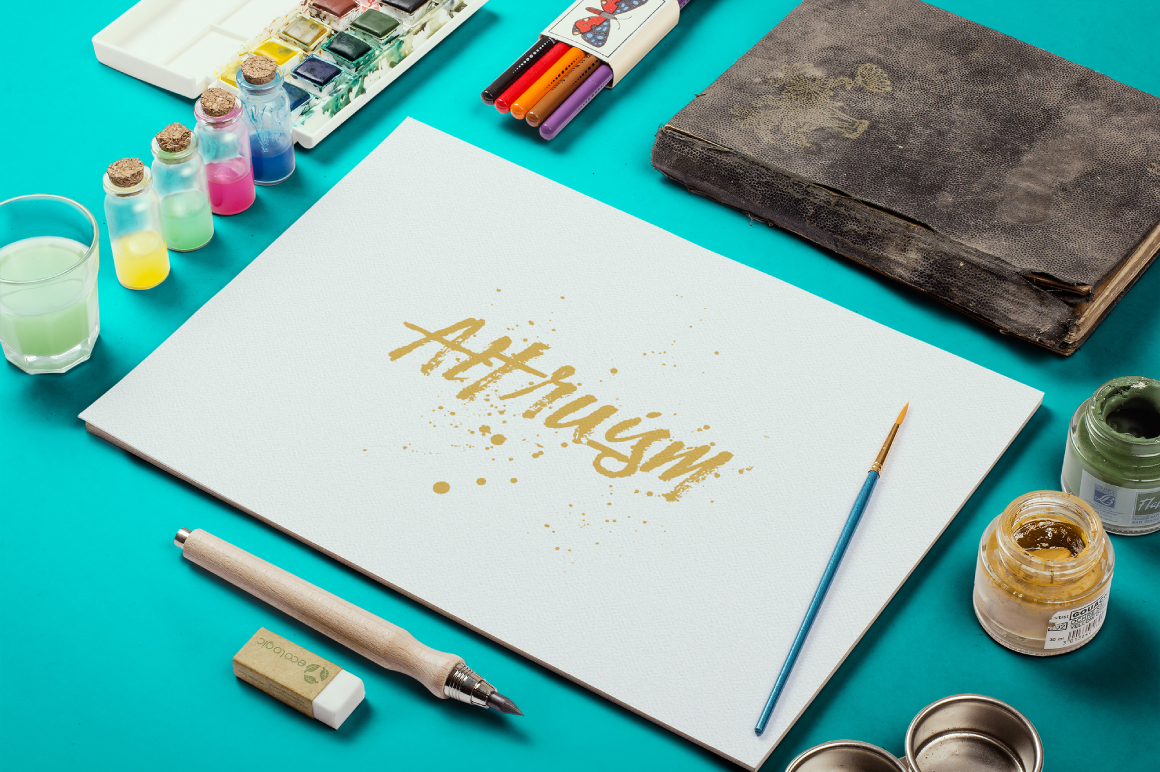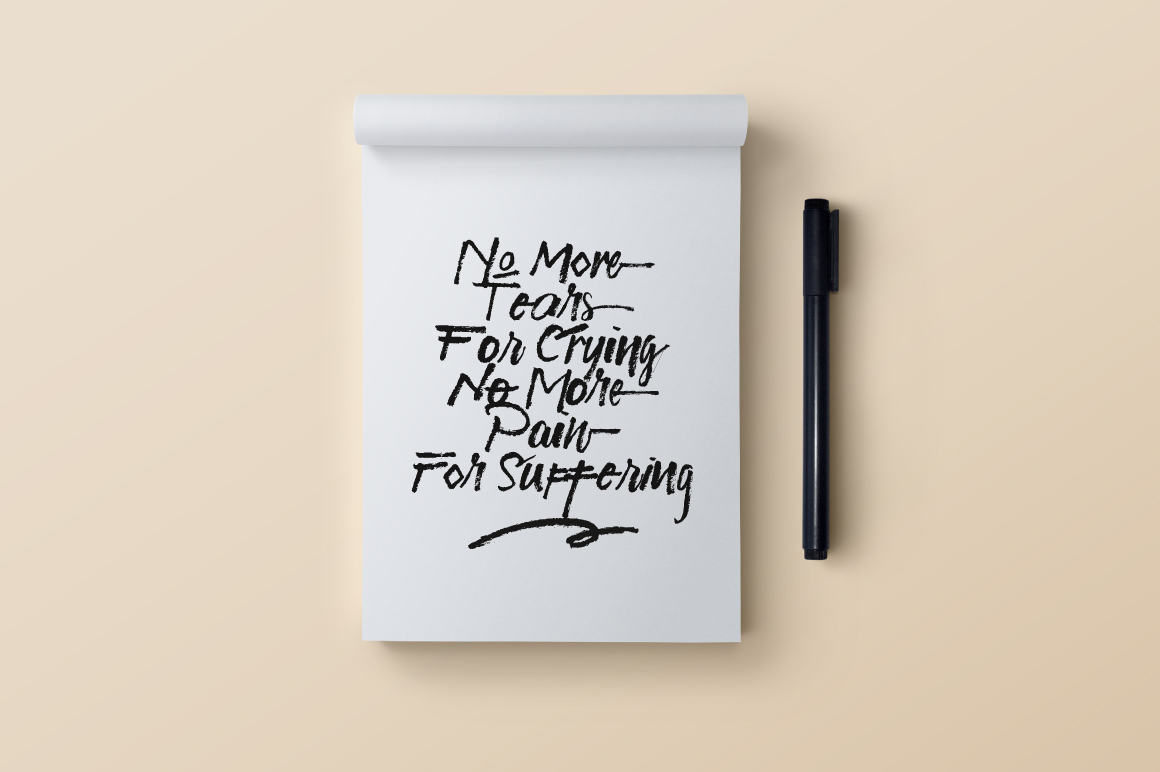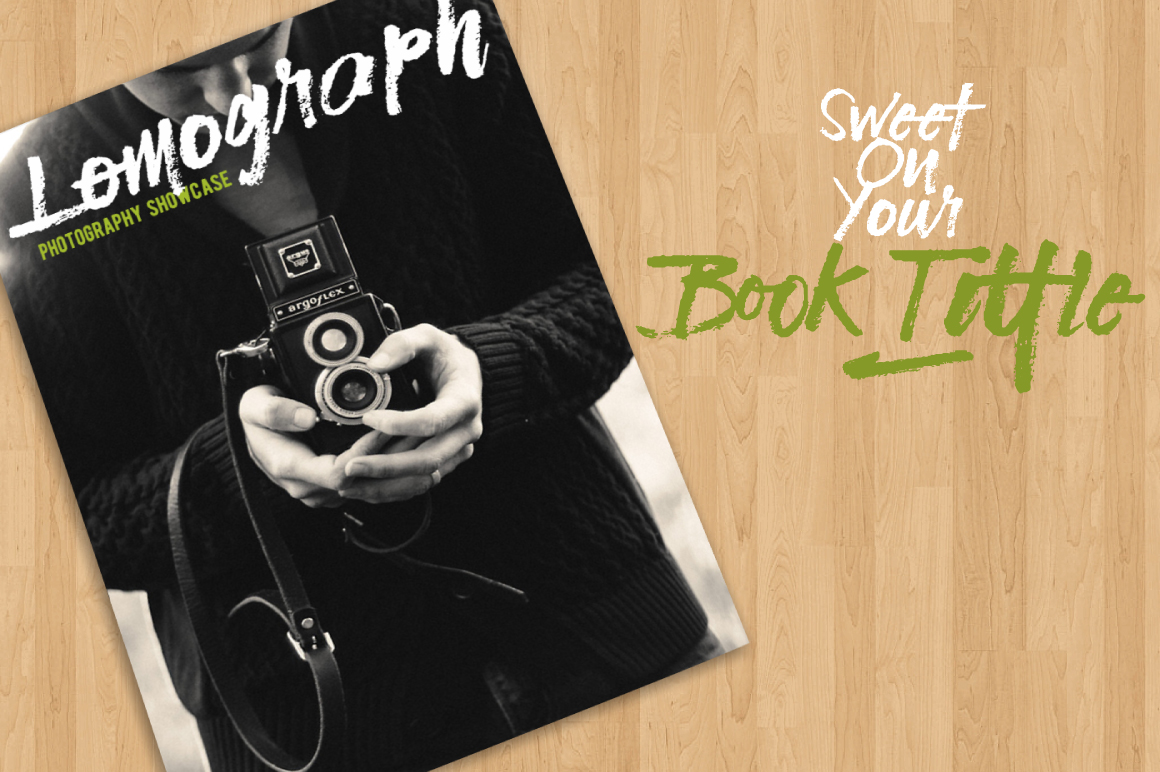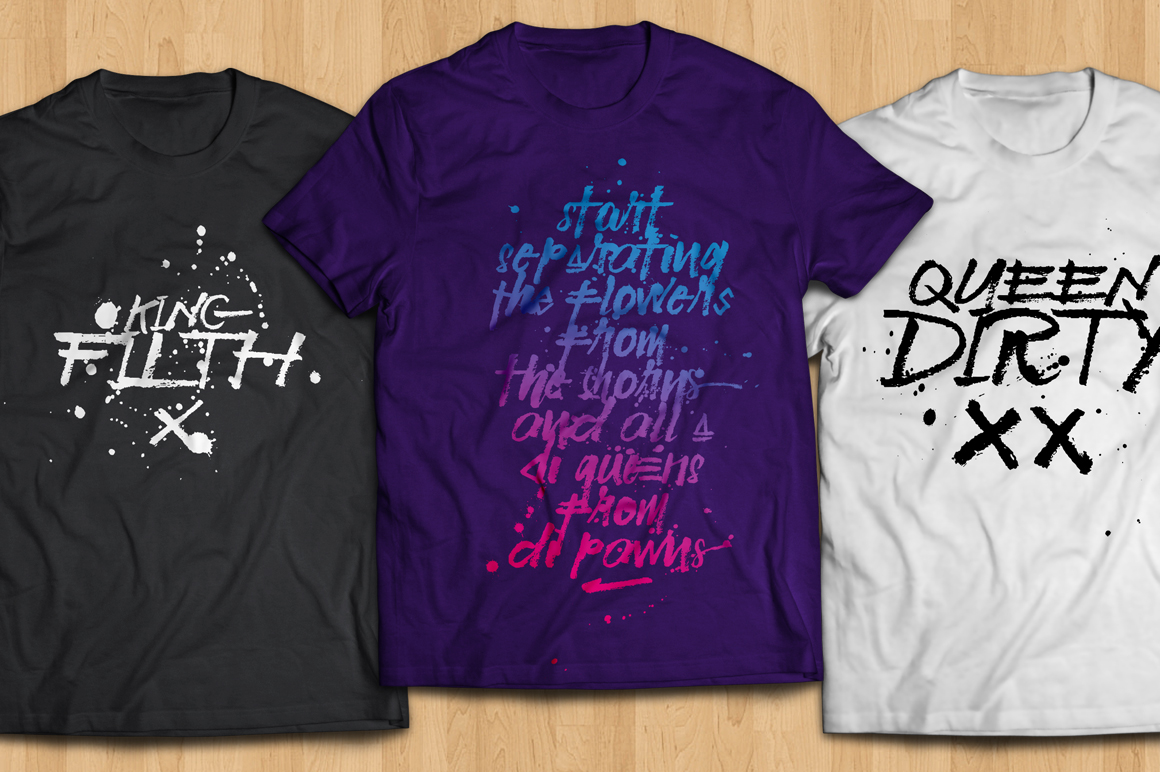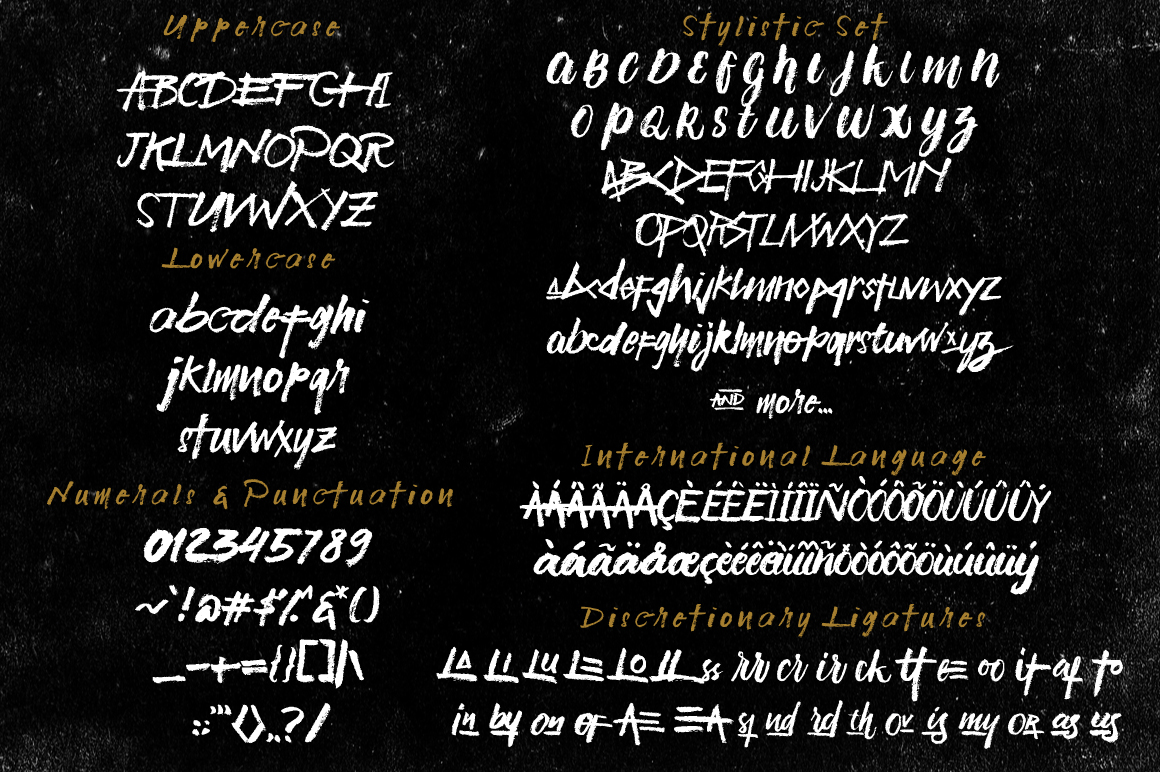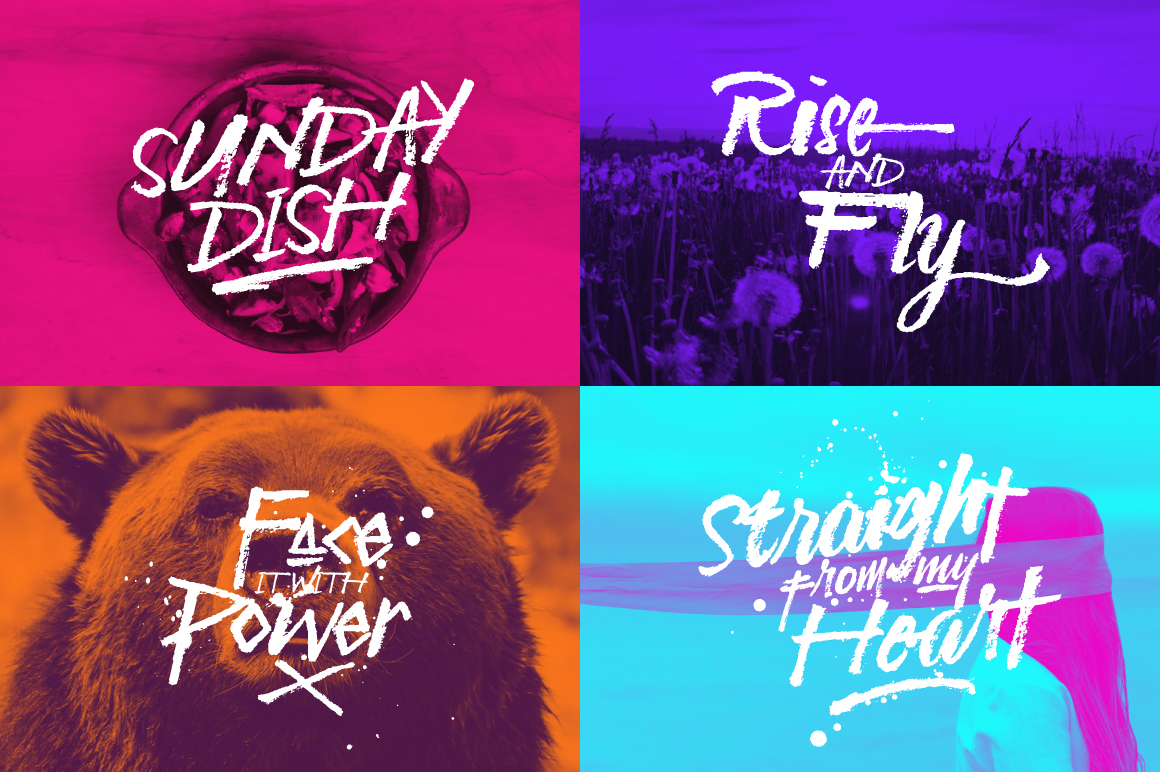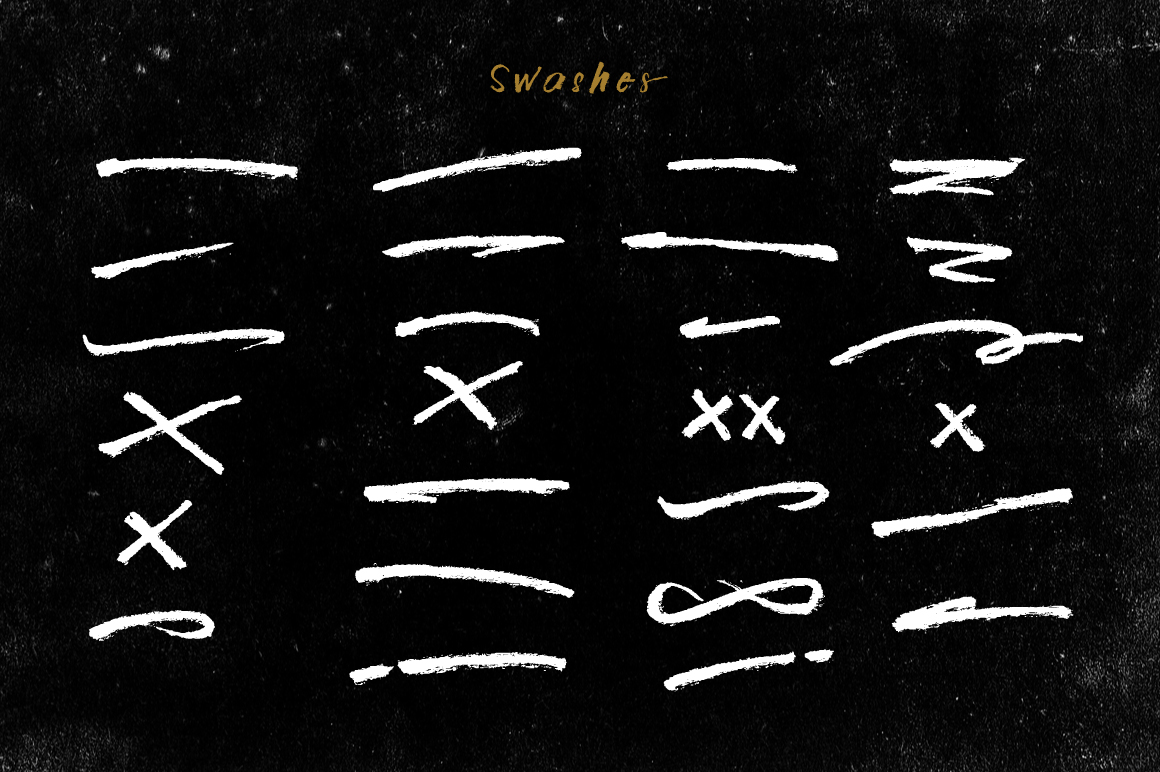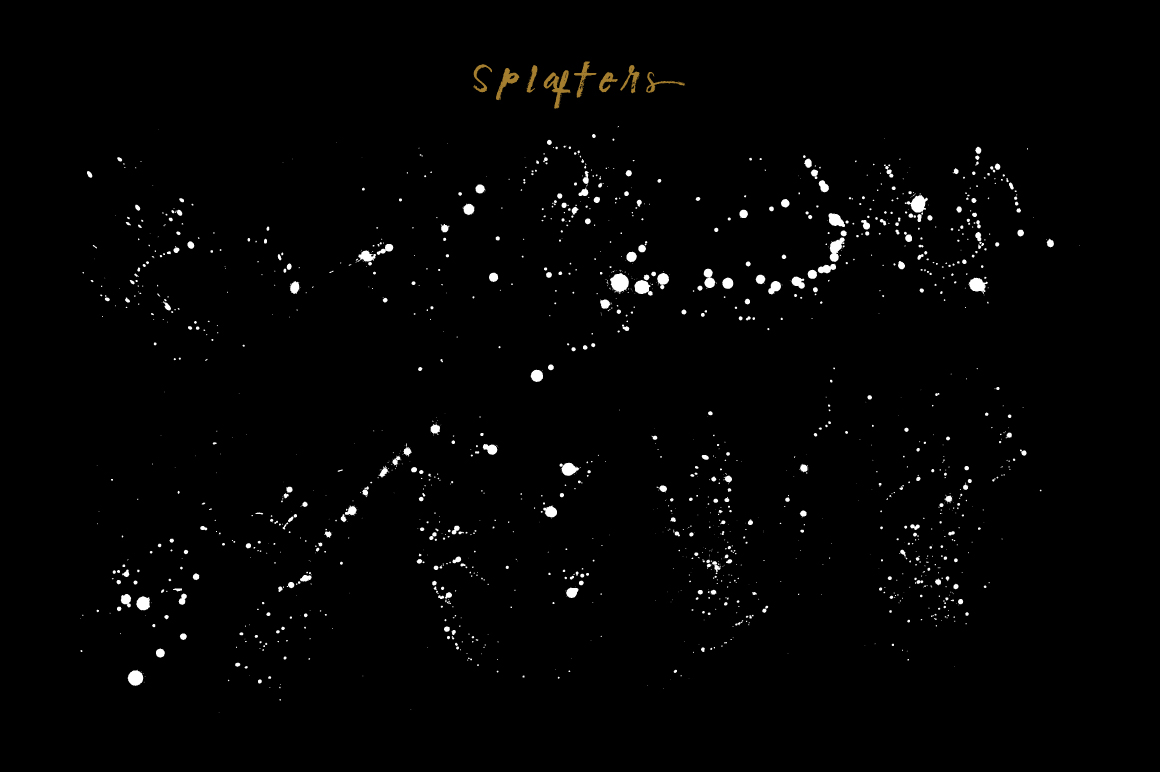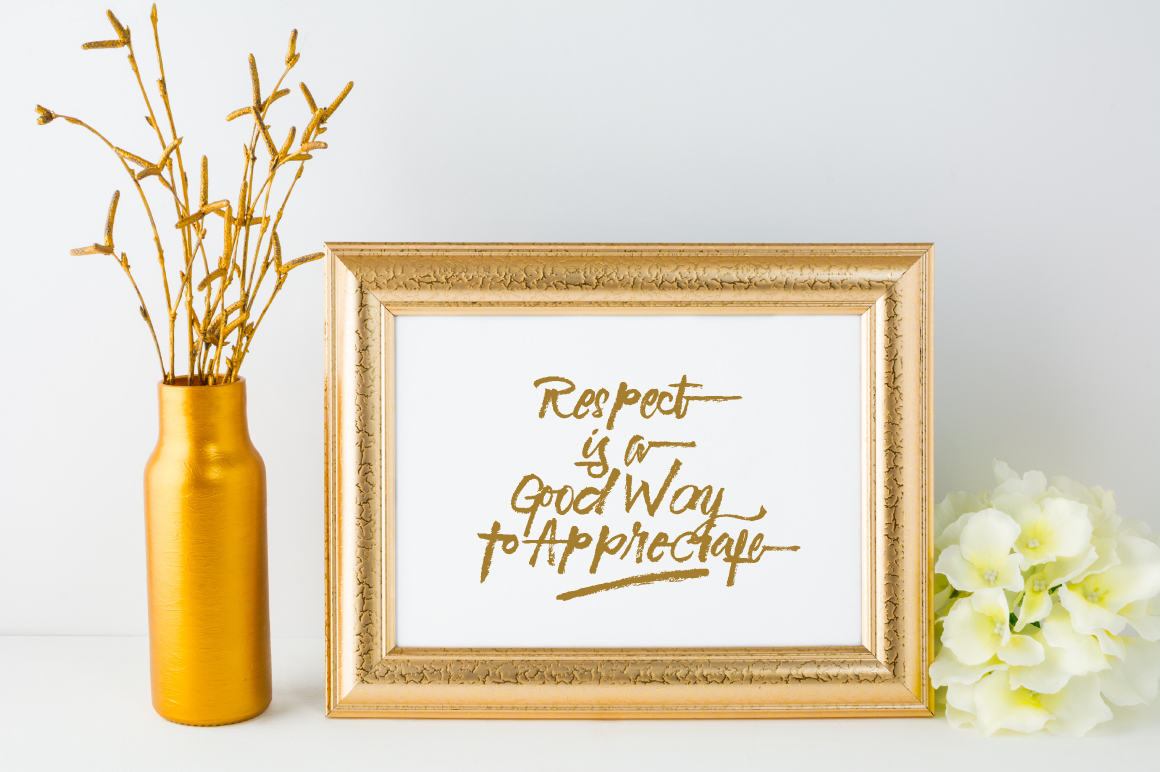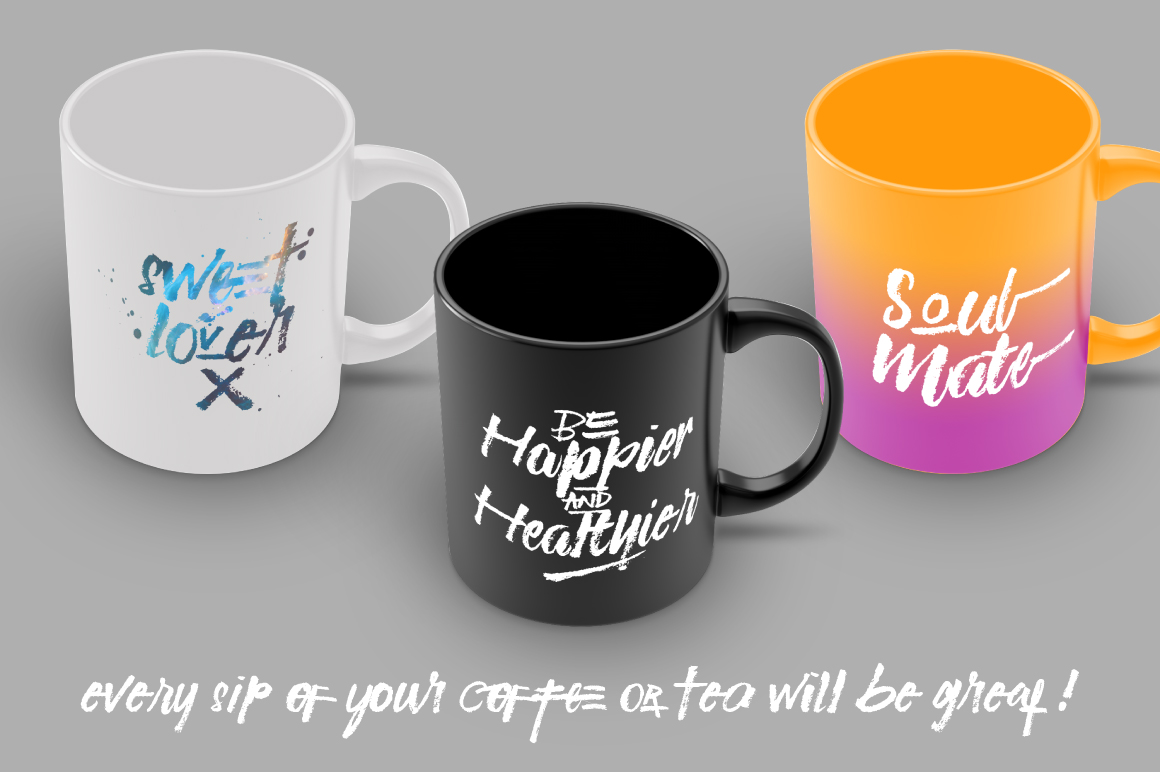
Hajar Bleh Font
About Hajar Bleh Font
Hajar Bleh is a handwriting font featuring a fun, unique style. It works well on designs that need to be expressive, such as logos, apparel, etc.